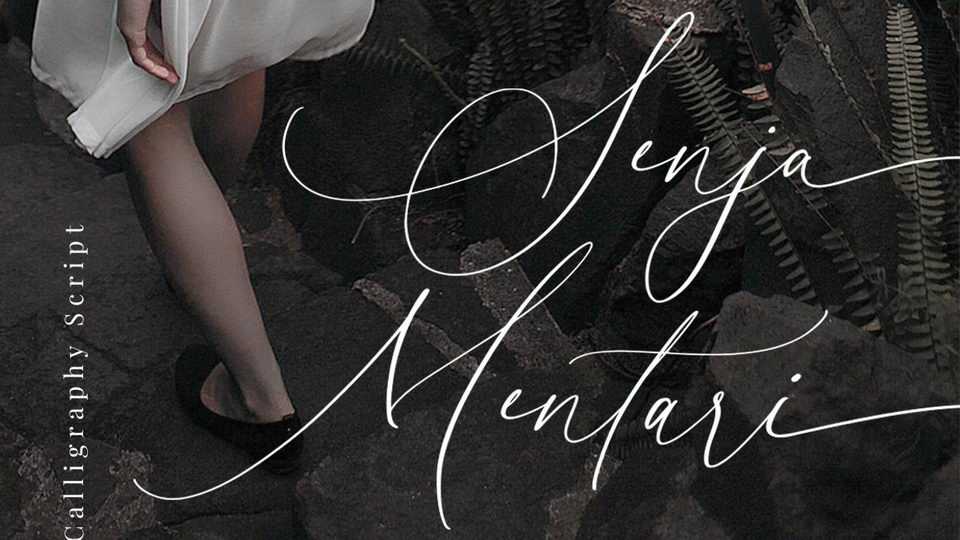
Senja Mentari Script Font › Fontesk
Download Senja Mentari font, an elegant modern calligraphy script inspired by delicate inky hand lettering, gorgeous wedding calligraphy and trending minimal branding designs.